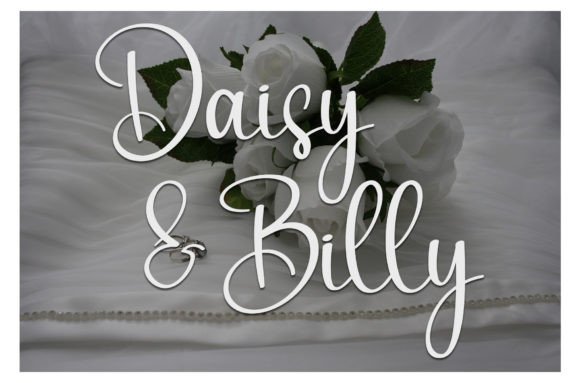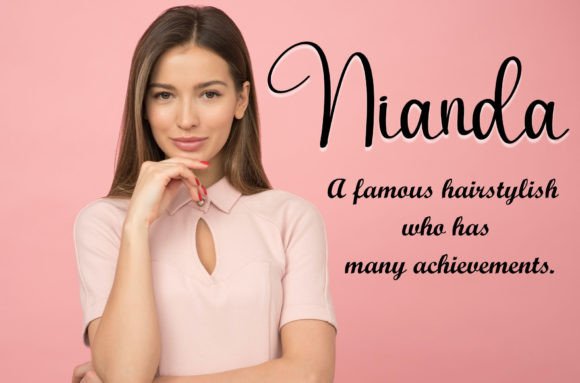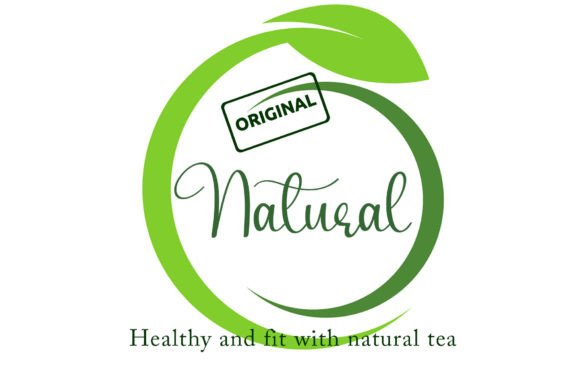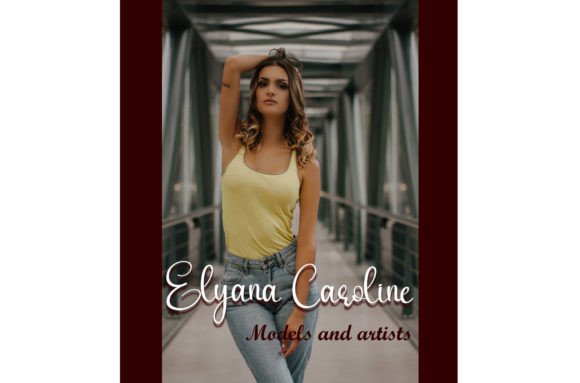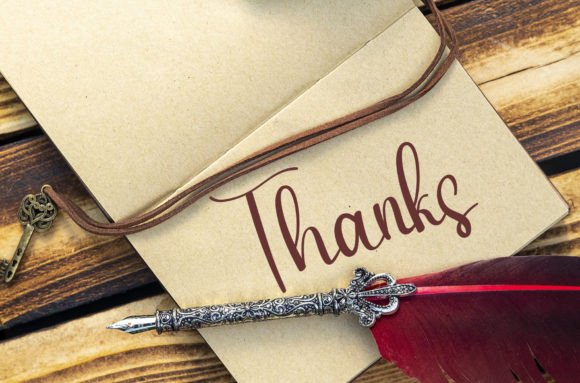
Introducing Diary Font: The Elegant and Timeless Choice for Your Design Projects
Are you looking for a font that adds a touch of elegance and sophistication to your design projects? Look no further than Diary Font, a beautiful handwritten font that is sure to capture your heart. With its unique and timeless style, Diary Font is perfect for designers and crafters who want to create spectacular designs that stand out from the crowd.
What Makes Diary Font So Special?
Diary Font is a neat and beautiful handwritten font that is depicted with an elegant touch. Its unique style is totally different from other fonts, making it a great choice for designers who want to add a personal touch to their projects. Whether you’re working on a creative project, a branding campaign, or simply want to add some personality to your digital content, Diary Font is the perfect choice.
Key Features of Diary Font
- Handwritten with love: Diary Font is a handwritten font that is crafted with love and care, giving it a personal and unique touch.
- Elegant and sophisticated: The font features an elegant and sophisticated style that is perfect for high-end designs and projects.
- Timeless style: Diary Font has a timeless style that will never go out of fashion, making it a great investment for designers and crafters.
- Versatile: The font is versatile and can be used for a wide range of projects, from creative designs to branding campaigns.
How to Use Diary Font in Your Design Projects
Diary Font is easy to use and can be incorporated into your design projects in a variety of ways. Here are a few ideas to get you started:
- Creative projects: Use Diary Font to add a personal touch to your creative projects, such as brochures, posters, and flyers.
- Branding campaigns: Diary Font is perfect for branding campaigns, adding a touch of elegance and sophistication to your logo and marketing materials.
- Digital content: Use Diary Font to add some personality to your digital content, such as blog posts, social media graphics, and email newsletters.
- Stationery and invitations: Diary Font is perfect for creating beautiful stationery and invitations that will make a lasting impression.
Tips for Getting the Most Out of Diary Font
Here are a few tips for getting the most out of Diary Font:
- Experiment with different sizes and colors: Diary Font looks great in a variety of sizes and colors, so don’t be afraid to experiment and find the perfect combination for your project.
- Pair it with other fonts: Diary Font pairs well with other fonts, so try combining it with a bold font for headings and a clean font for body text.
- Use it consistently: Use Diary Font consistently throughout your project to create a cohesive and professional look.